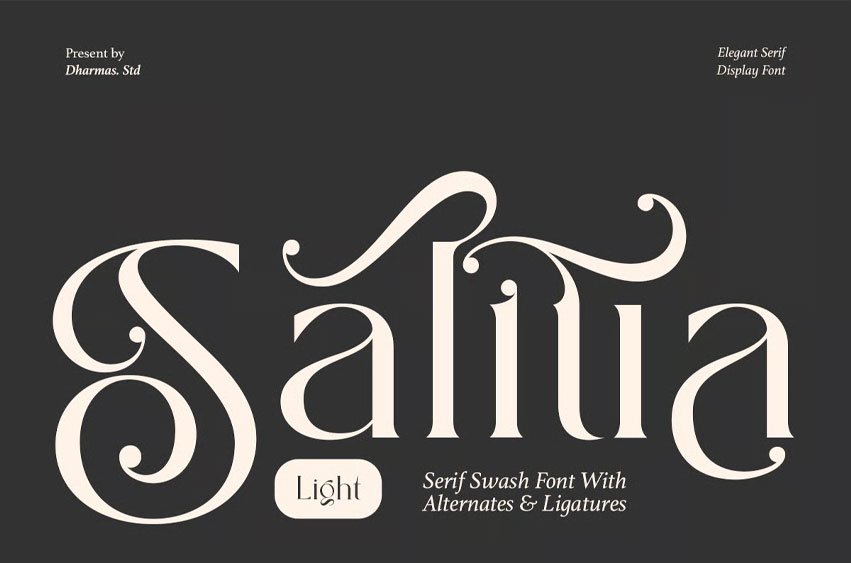
Salitia Light Font is a modern serif style from the Salitia font family, designed with elegance and simplicity in mind. Featuring tightly spaced serifs inspired by the 80s and 90s, this light-weight version is perfect for creating timeless and stylish logos.
Its unique ligatures and beautiful alternates make Salitia Light ideal not only for branding and logo design, but also for headlines, packaging, UI design, magazine layouts, product descriptions, and other creative projects.
- 175+ Special Alternates and Ligatures